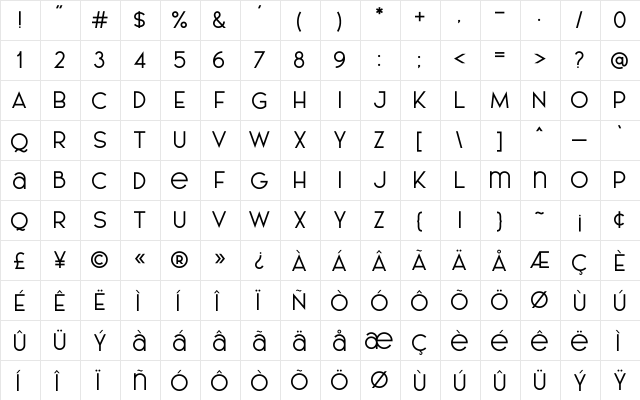
AL_LePORSCHE_PersonalUseOnly Regular
Design Context for AL_LePORSCHE_PersonalUseOnly Typeface
AL_LePORSCHE_PersonalUseOnly takes a measured approach to typography — its balanced proportions and neutral character make it a reliable workhorse for both digital and print work.